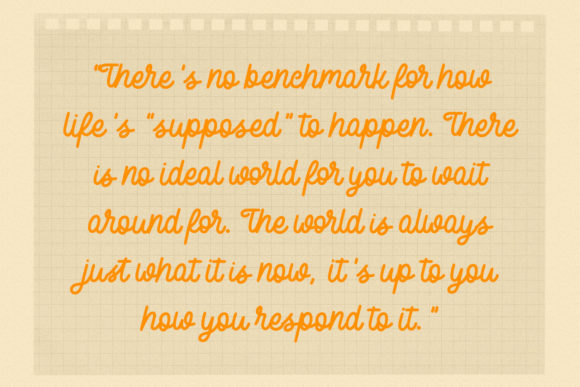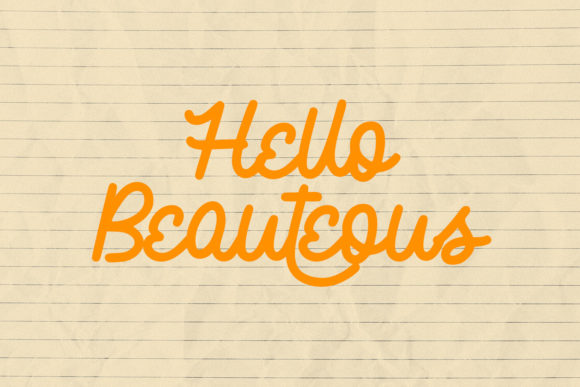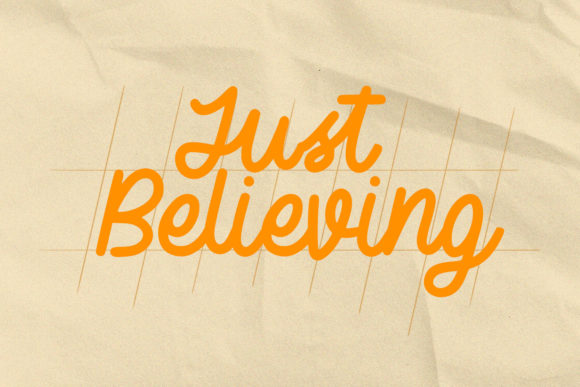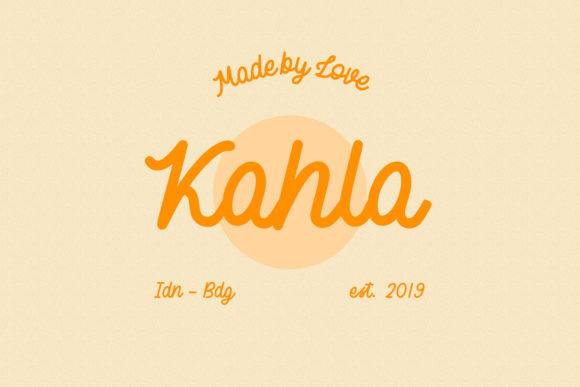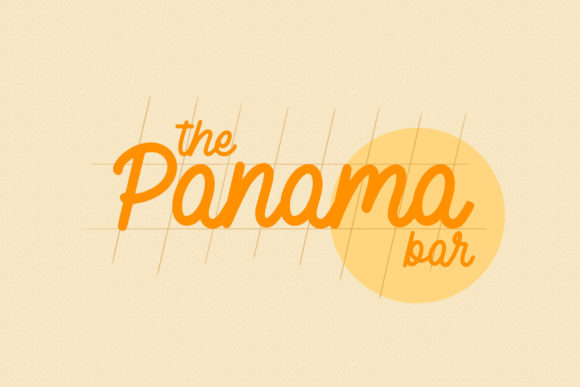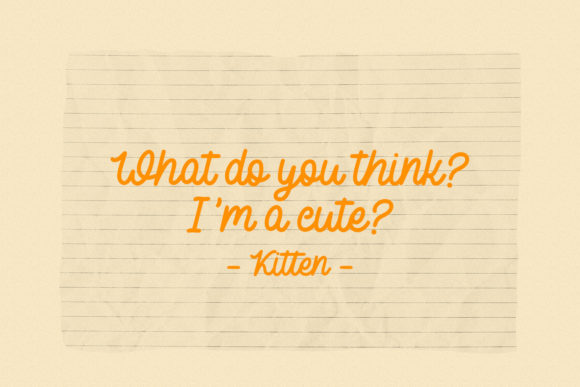
Introducing Cherytos Script Font: Elevate Your Designs with a Touch of Vintage Elegance
In the world of typography, fonts play a crucial role in conveying the tone and aesthetic of a design. For designers and crafters looking to add a touch of vintage elegance to their creations, Cherytos Script Font is an excellent choice. This neat and vintage-styled script font has the potential to enhance any project, making it a wonderful asset to your font library.
What Makes Cherytos Script Font Special?
Cherytos Script Font stands out from the crowd with its unique blend of classic and modern elements. Its vintage style is reminiscent of traditional script fonts, while its neat and clean lines ensure that it remains highly legible. This font is versatile and can be used for a wide range of design projects, from branding and advertising to packaging and digital media.
Key Features of Cherytos Script Font
- Vintage Style: Cherytos Script Font boasts a classic, vintage look that adds a touch of elegance to any design.
- Neat and Clean Lines: The font’s clean lines ensure that it remains highly legible, even at smaller sizes.
- Versatile: Cherytos Script Font can be used for a wide range of design projects, from formal to informal.
- Easy to Read: The font’s clear and concise style makes it easy to read, even for extended periods.
Use Cases for Cherytos Script Font
Cherytos Script Font is an incredibly versatile font that can be used in a variety of design projects. Here are some use cases to get you started:
- Branding and Logo Design: Use Cherytos Script Font to create a unique and memorable brand identity.
- Advertising and Marketing: Add a touch of vintage elegance to your advertising and marketing materials.
- Packaging Design: Use Cherytos Script Font to create eye-catching packaging that stands out on store shelves.
- Digital Media: Add a touch of class to your digital media, including social media graphics, blog posts, and more.
Tips for Using Cherytos Script Font
To get the most out of Cherytos Script Font, here are some tips to keep in mind:
- Pair with a Sans-Serif Font: Pair Cherytos Script Font with a sans-serif font to create a beautiful contrast.
- Use for Headings and Titles: Use Cherytos Script Font for headings and titles to add a touch of elegance.